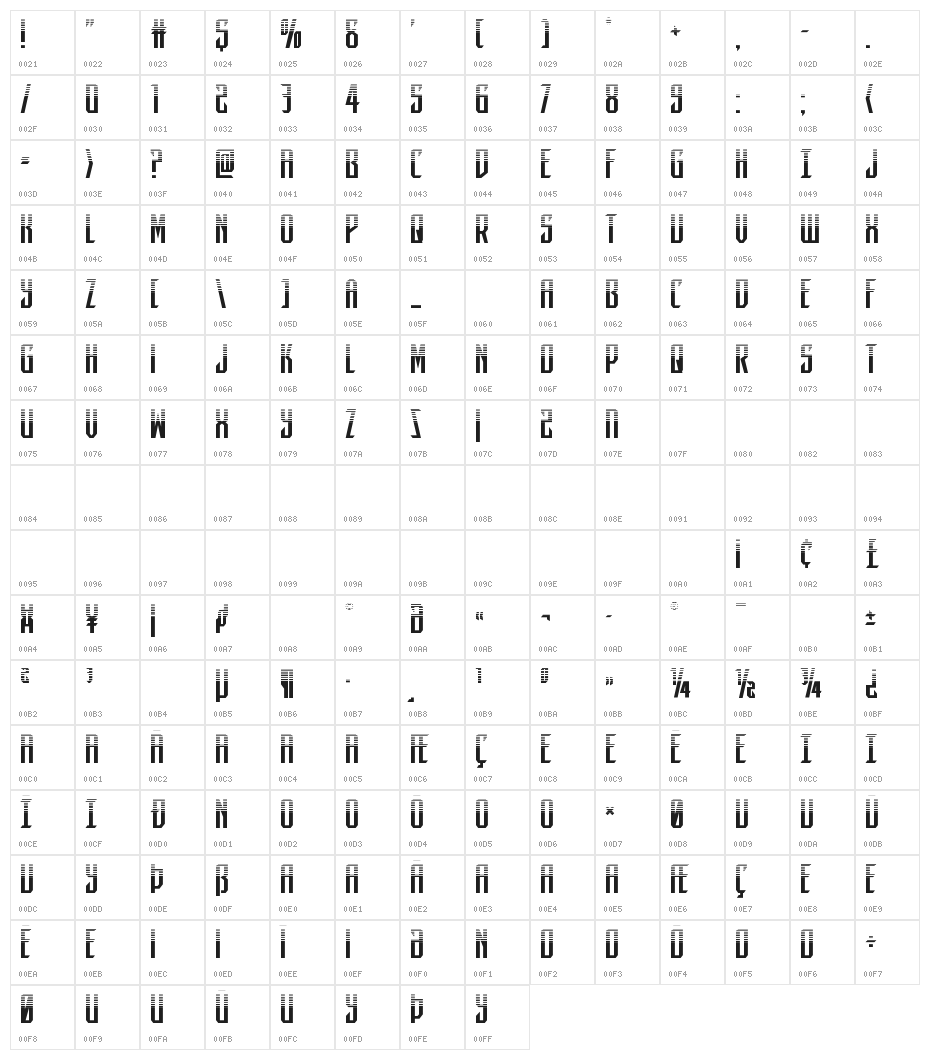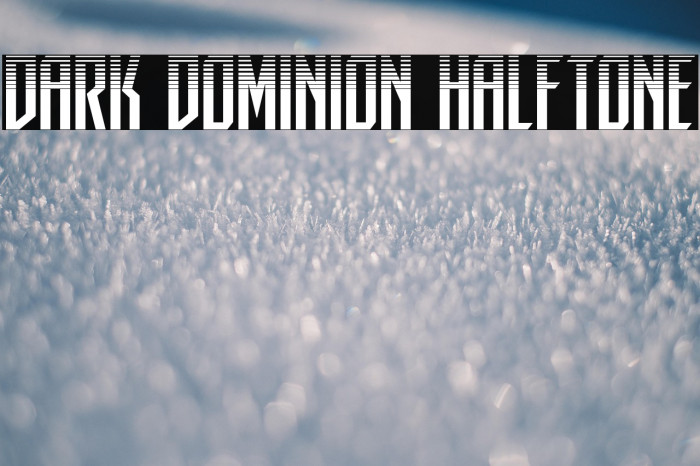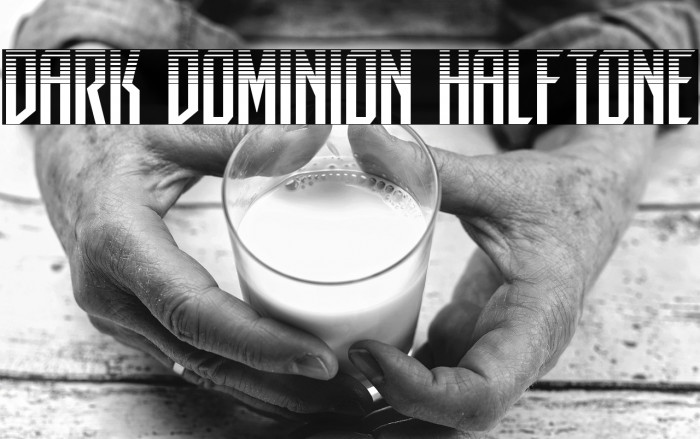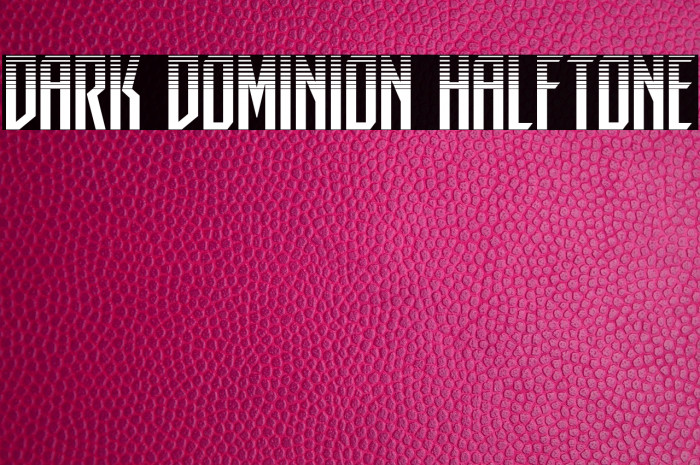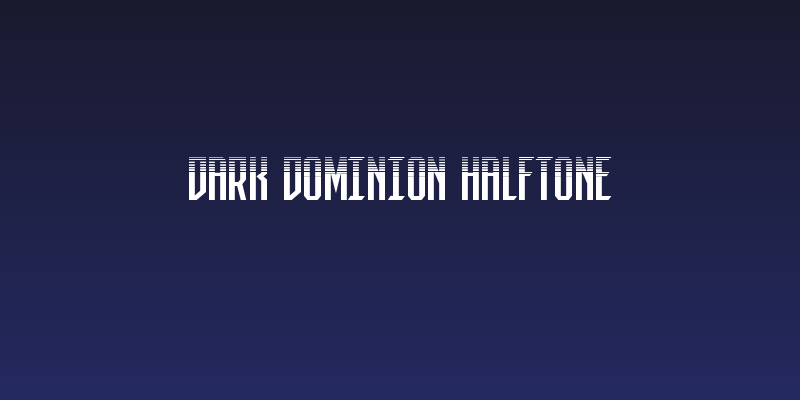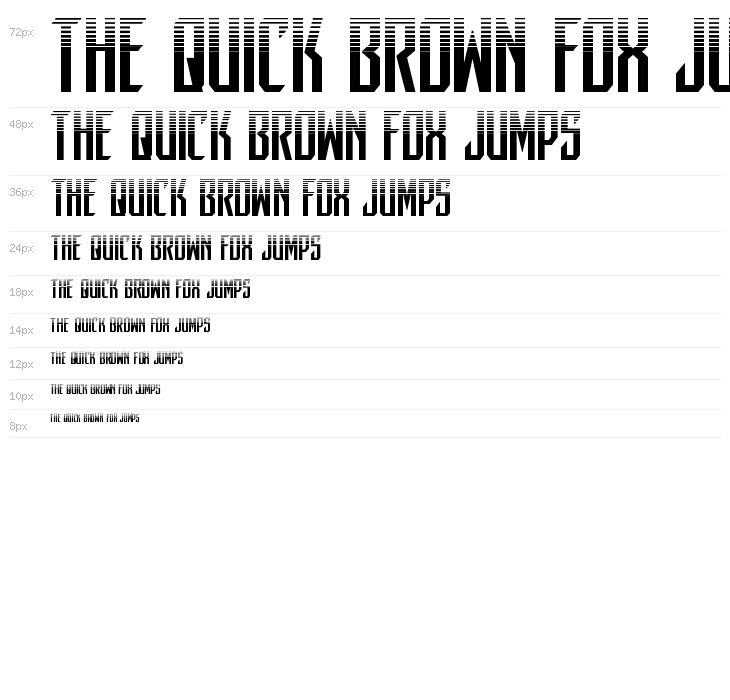
Dark Dominion Halftone Font
Dark Dominion Halftone Description
This font features a bold, geometric design with a distinctive halftone effect that creates a sense of depth and movement. The uppercase letters are tall and narrow, with sharp angles and a futuristic aesthetic. The lowercase letters maintain the same angular style, ensuring consistency across the typeface. Numbers and special characters are designed to match the bold and dynamic look of the alphabet. The halftone pattern adds a unique texture, making it ideal for eye-catching designs. This font is perfect for projects that require a modern and edgy appearance.
Proposed ProjectsSuitable for posters, album covers, video game graphics, and branding that requires a futuristic and dynamic look.